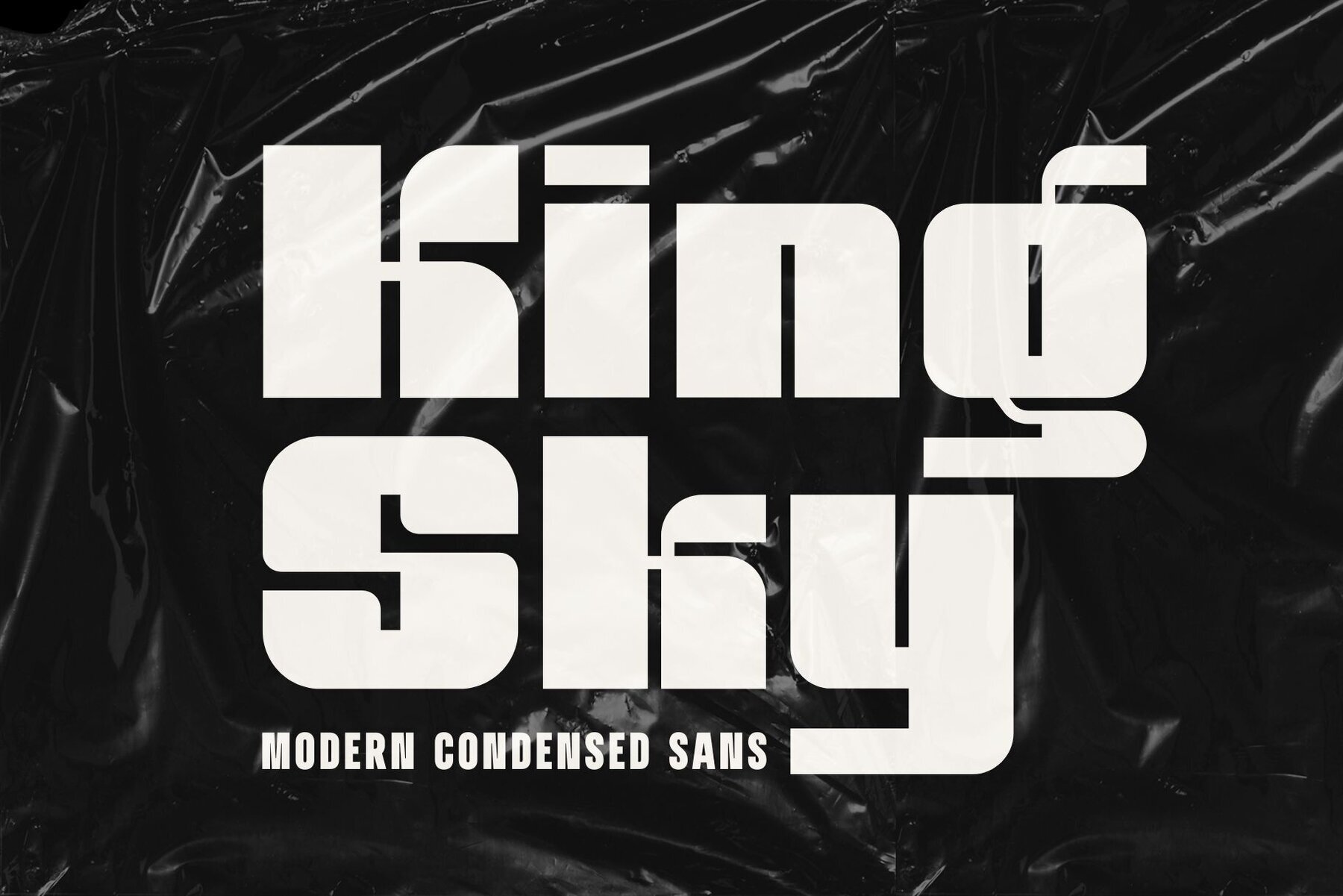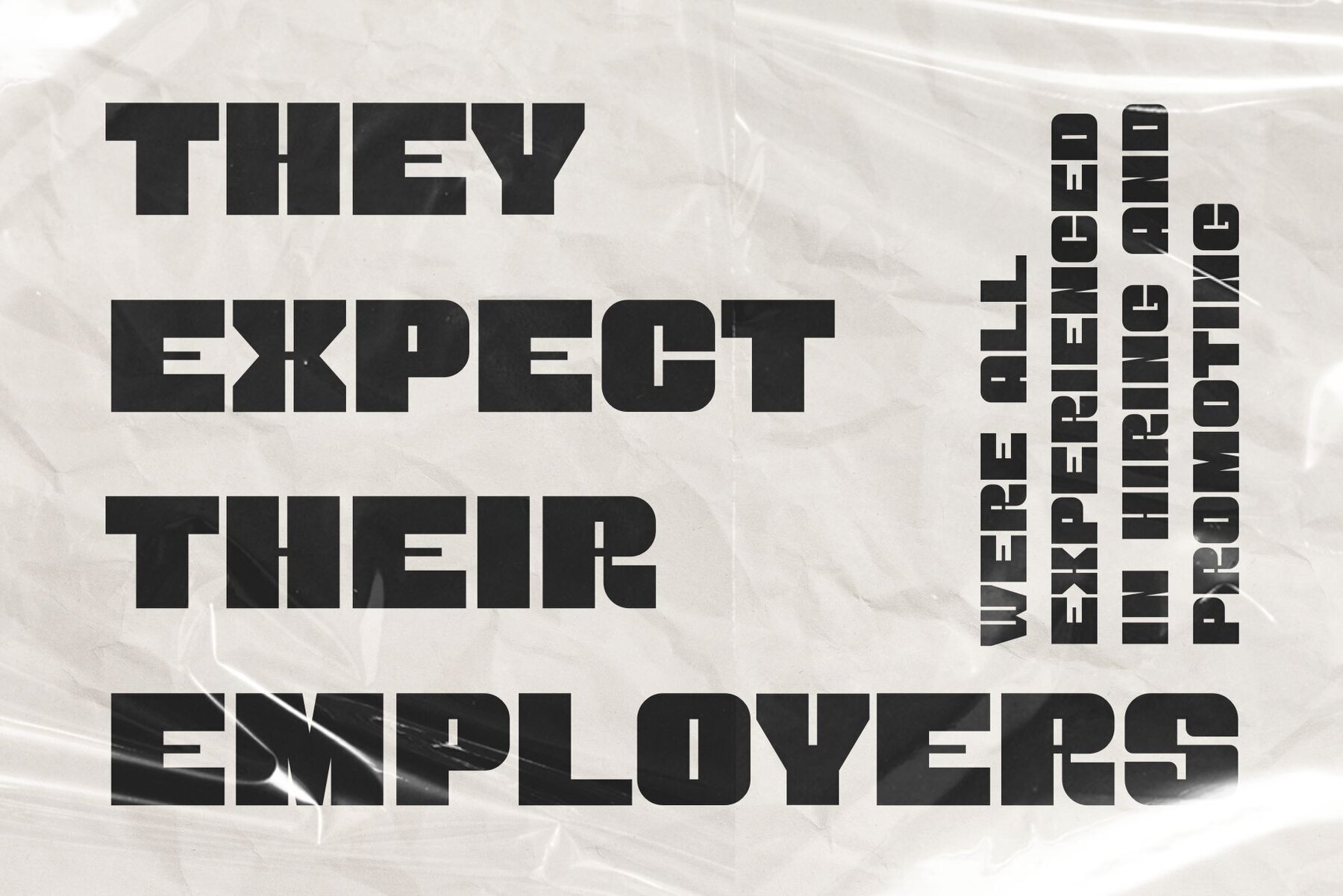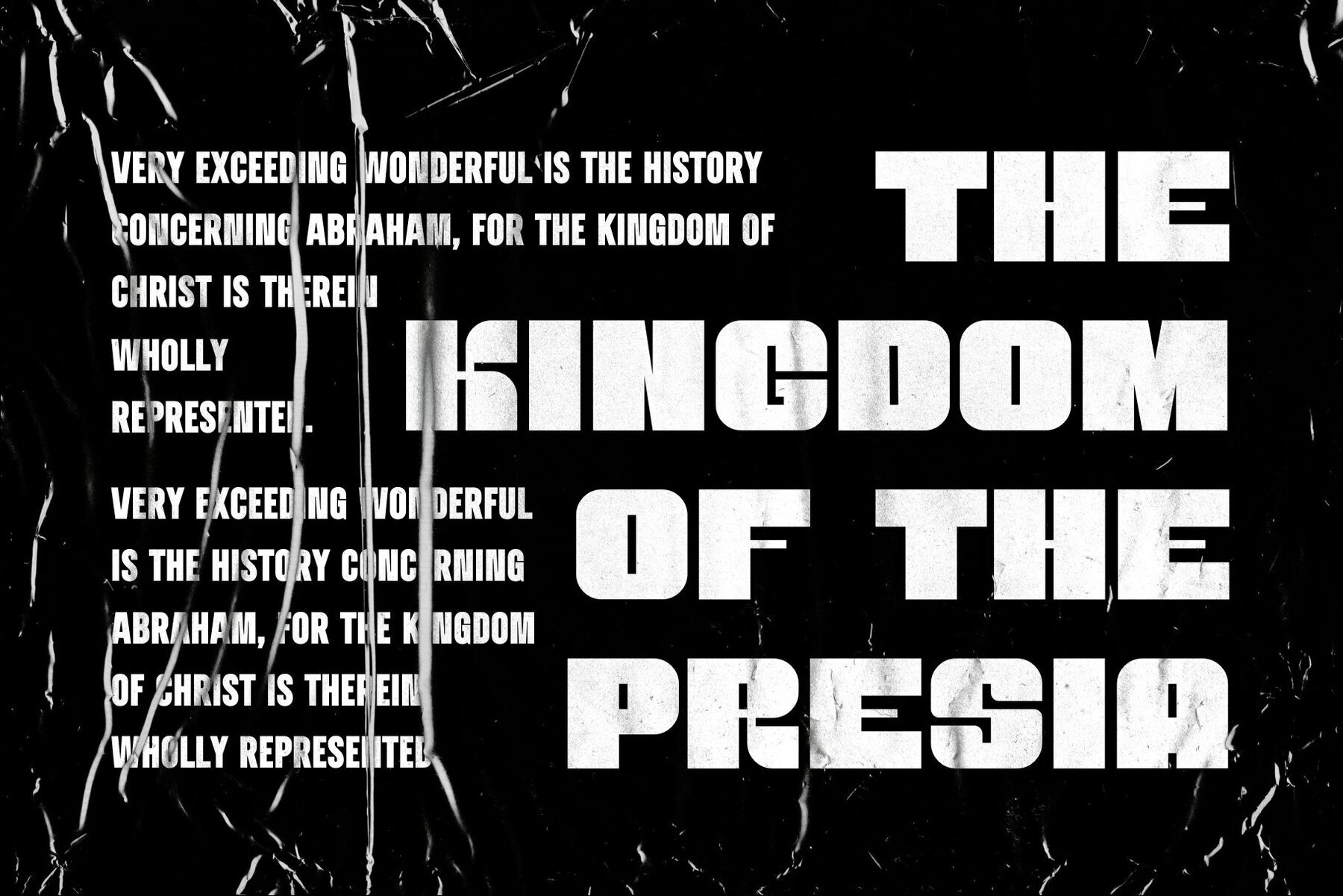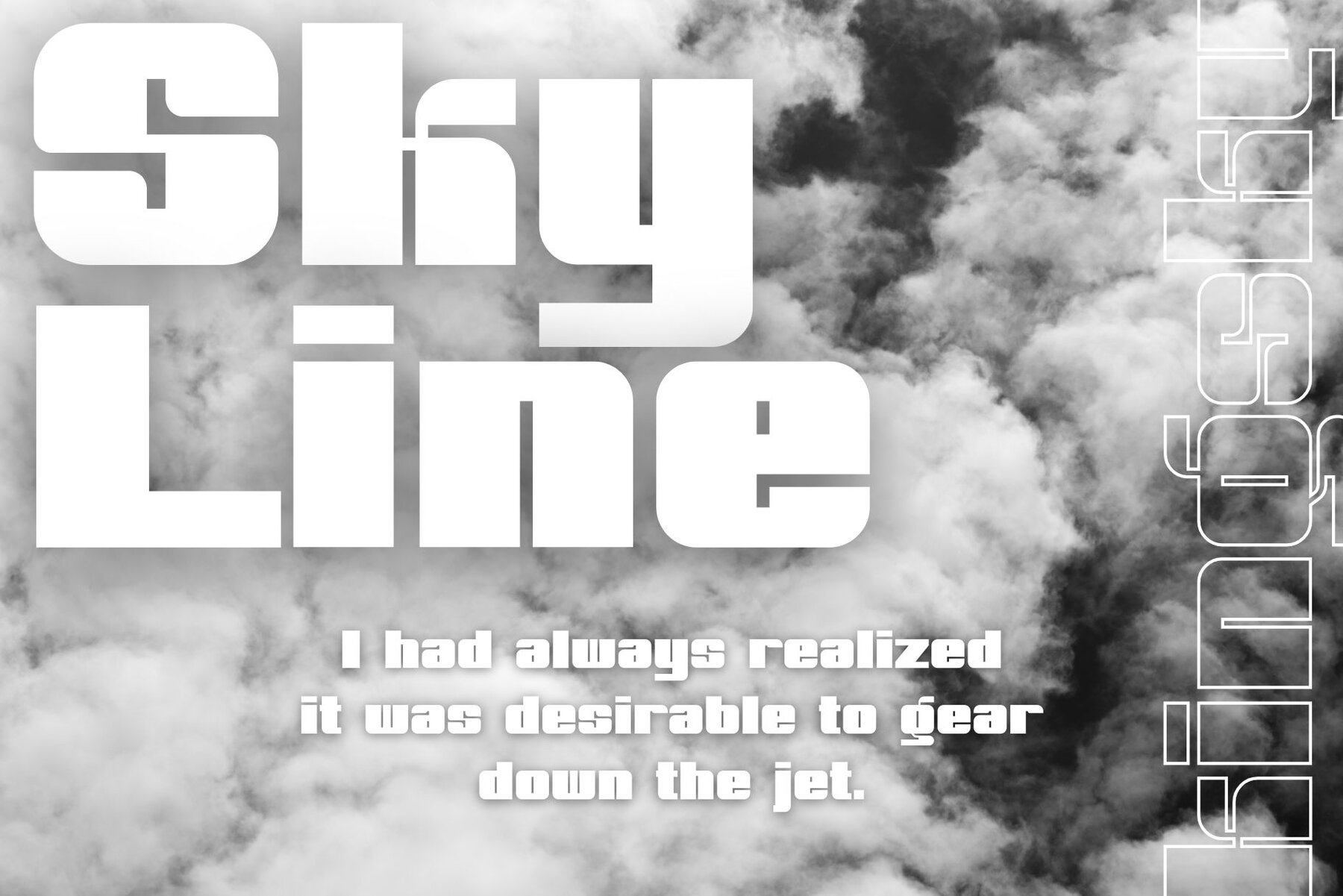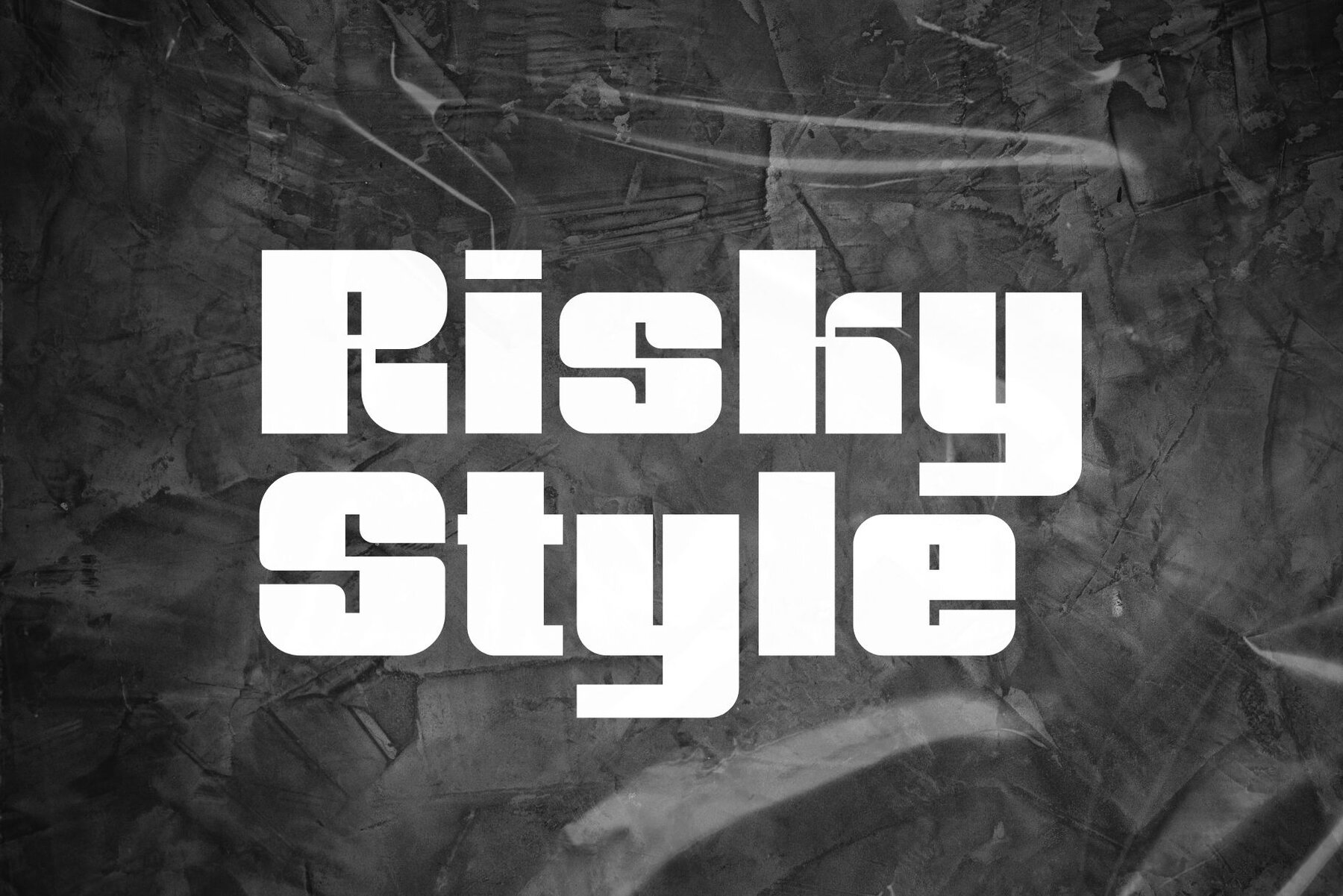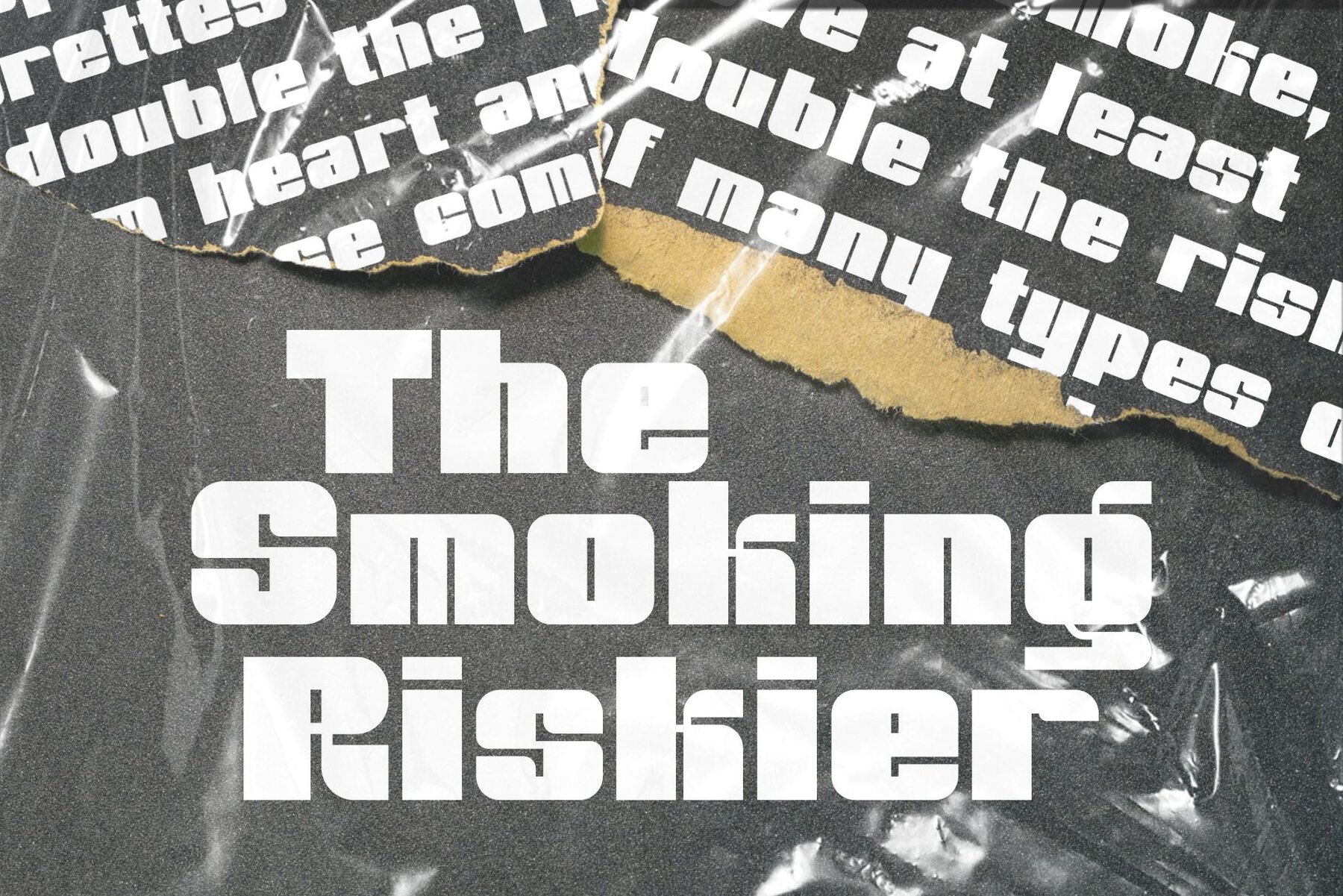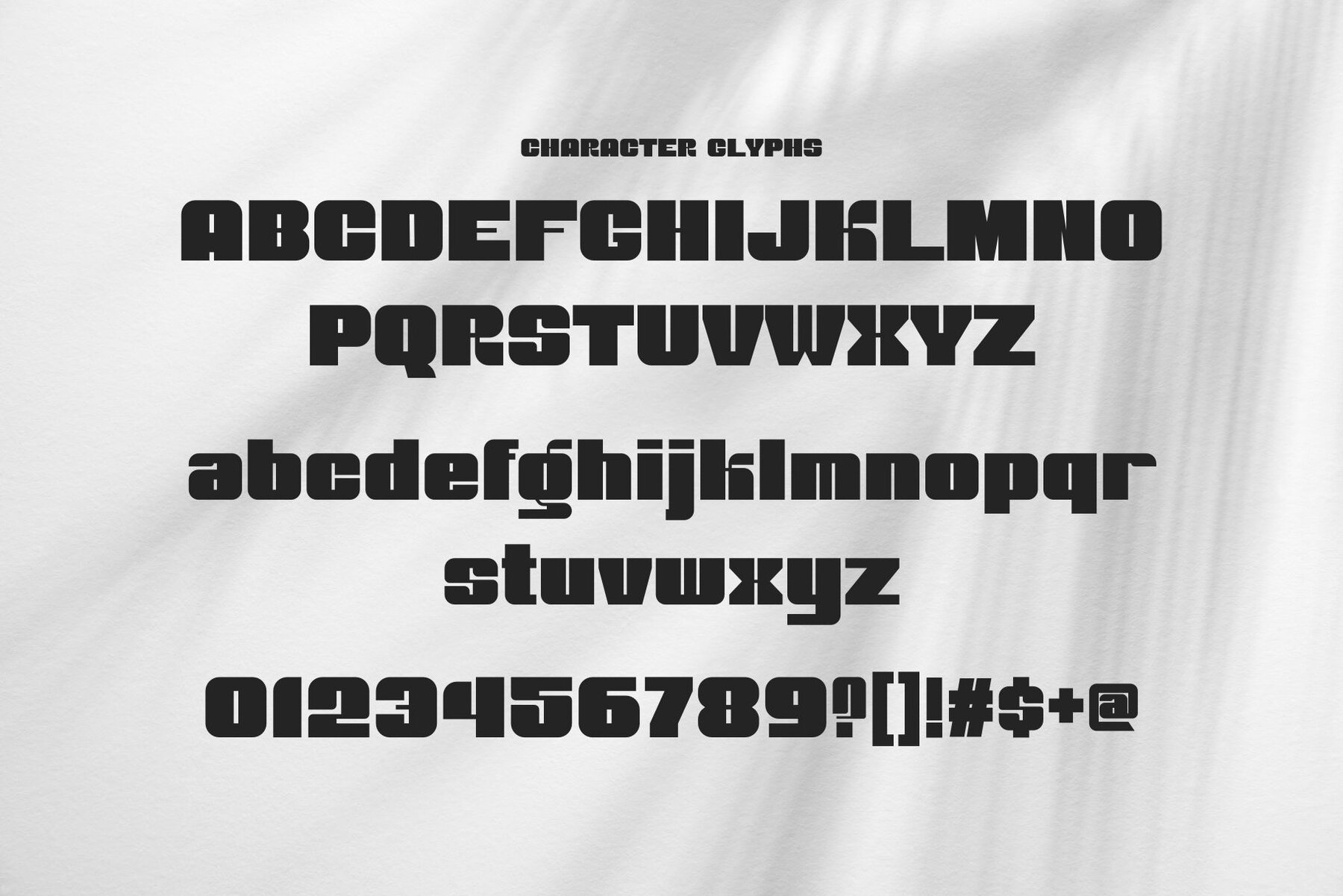
King Sky Font
King Sky
The King Sky font by Graphicxell offers a clean and minimalist design, making it an ideal choice for a wide range of creative projects.King Sky: Minimalist Logo Design Font